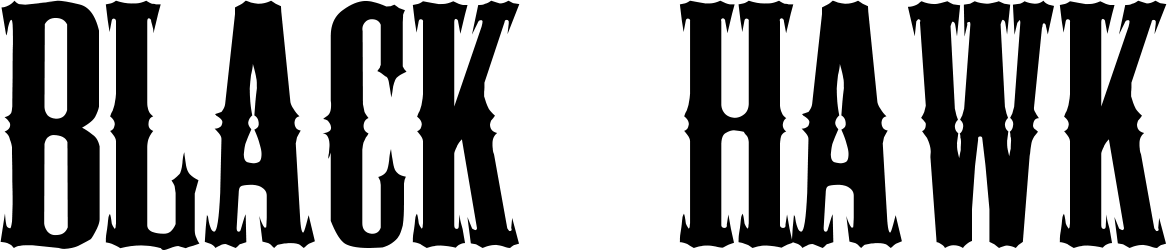
Black Hawk Font
Designed byJohn Singer
Although some fonts get old and blown very quickly, others like Black Hawk never get old and are always attractive and fresh. Black Hawk is a Western font that does not support lowercase letters. This vintage T-shirt font conveys a sense of excitement and dynamism to the audience and is ideal for designing the front page of a website or a movie and video game poster.